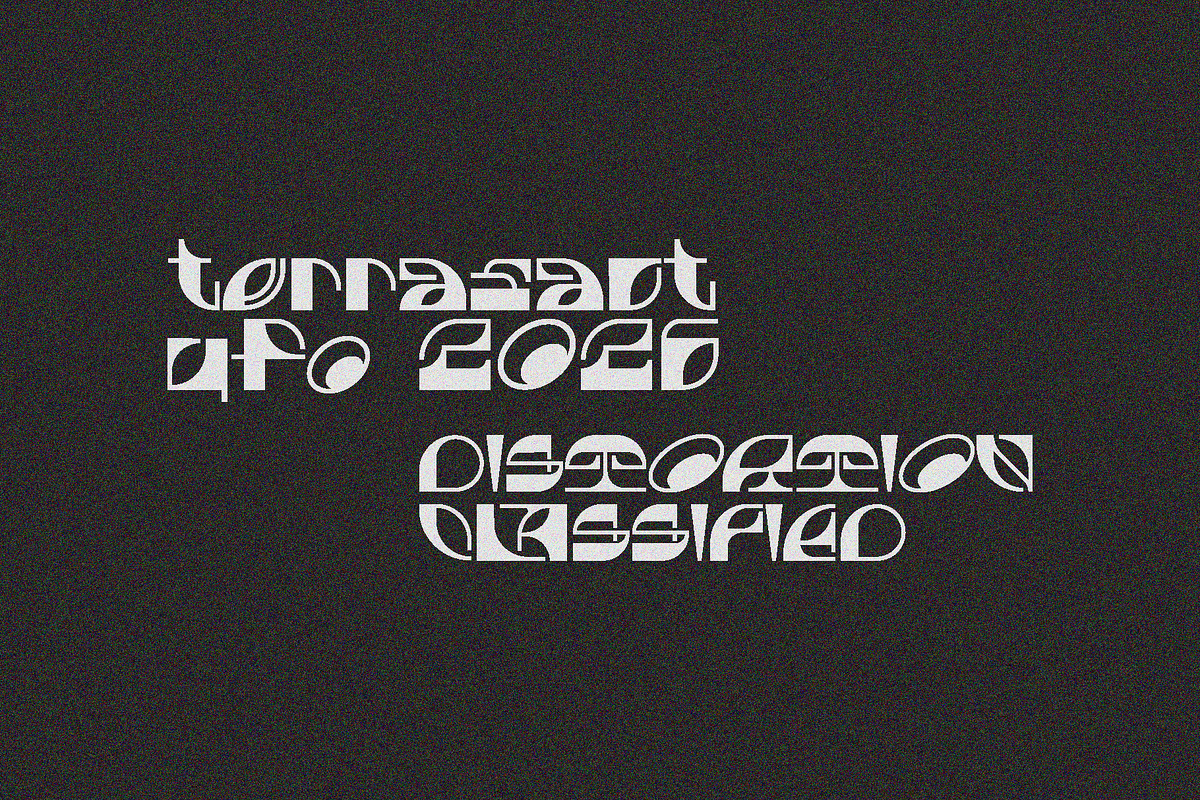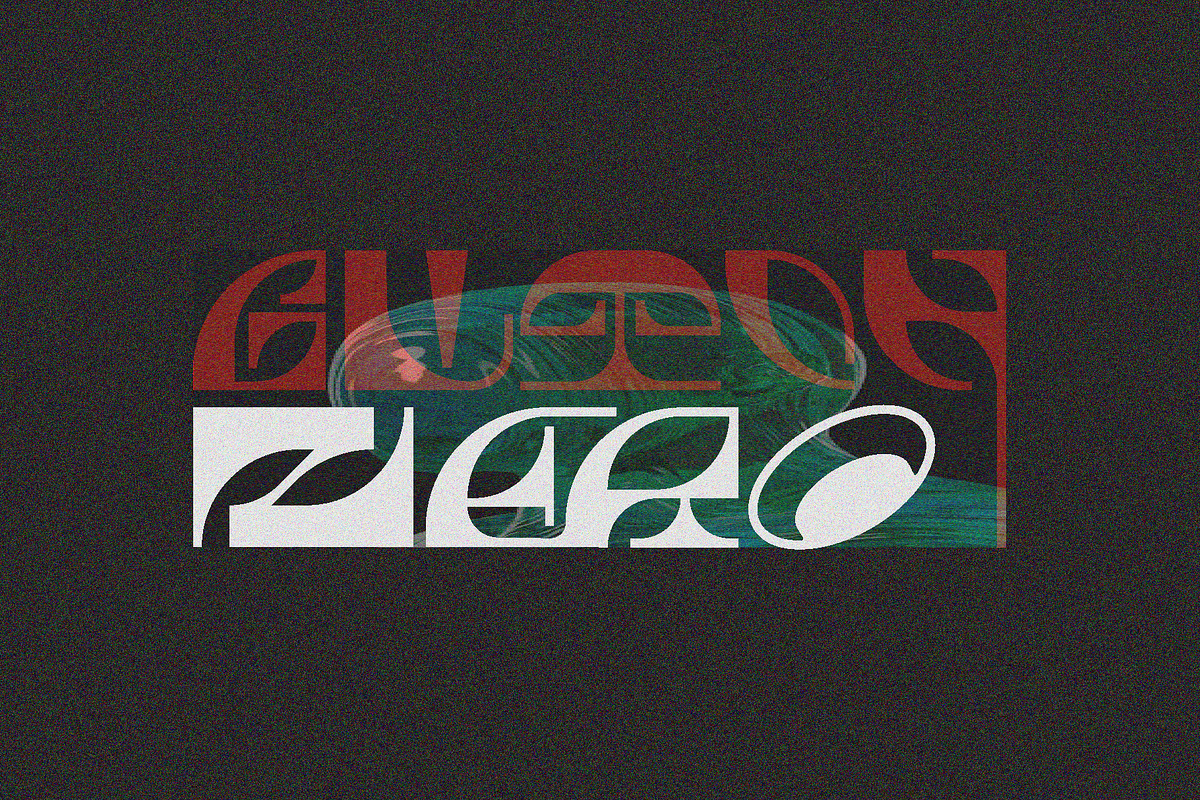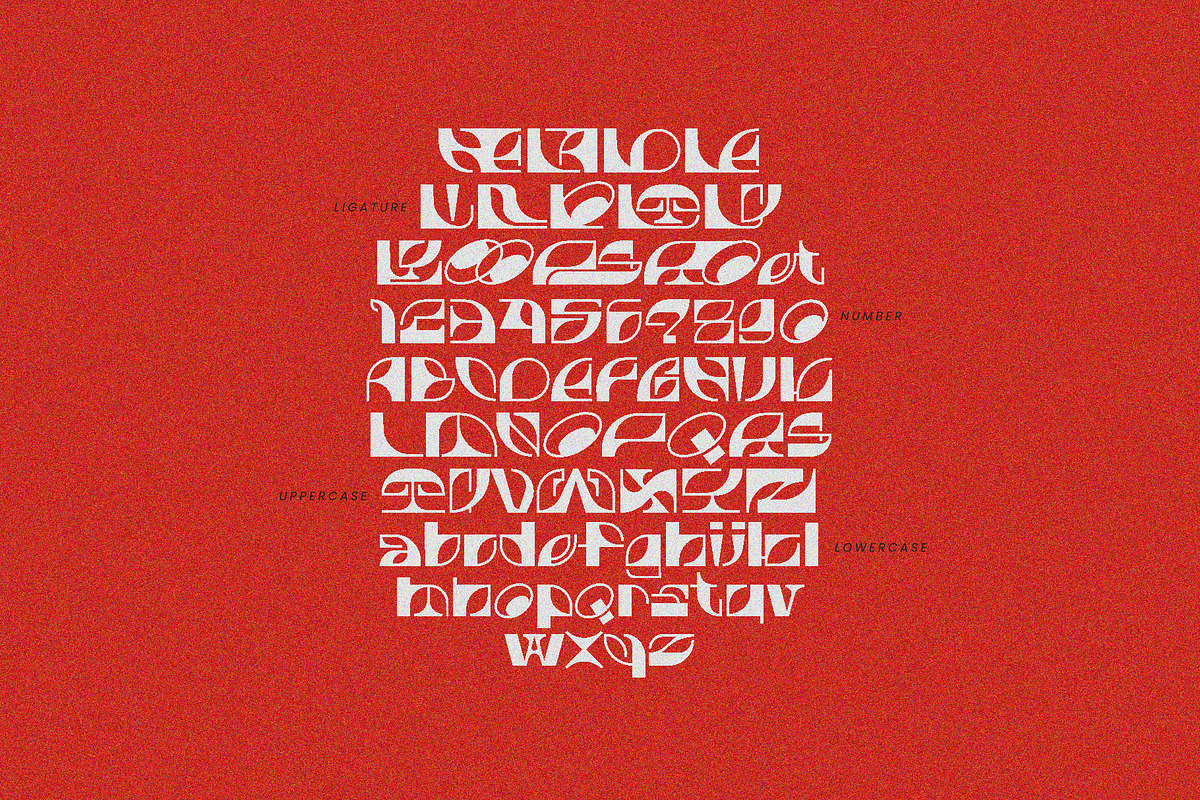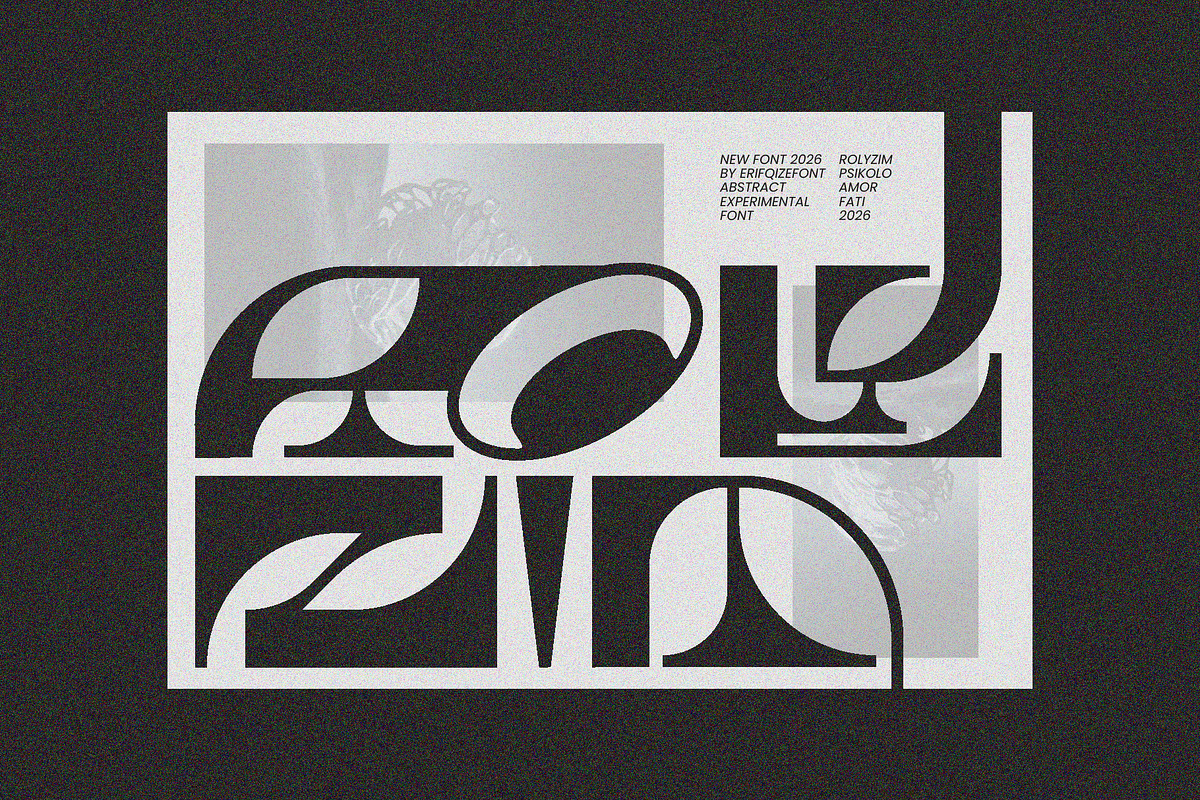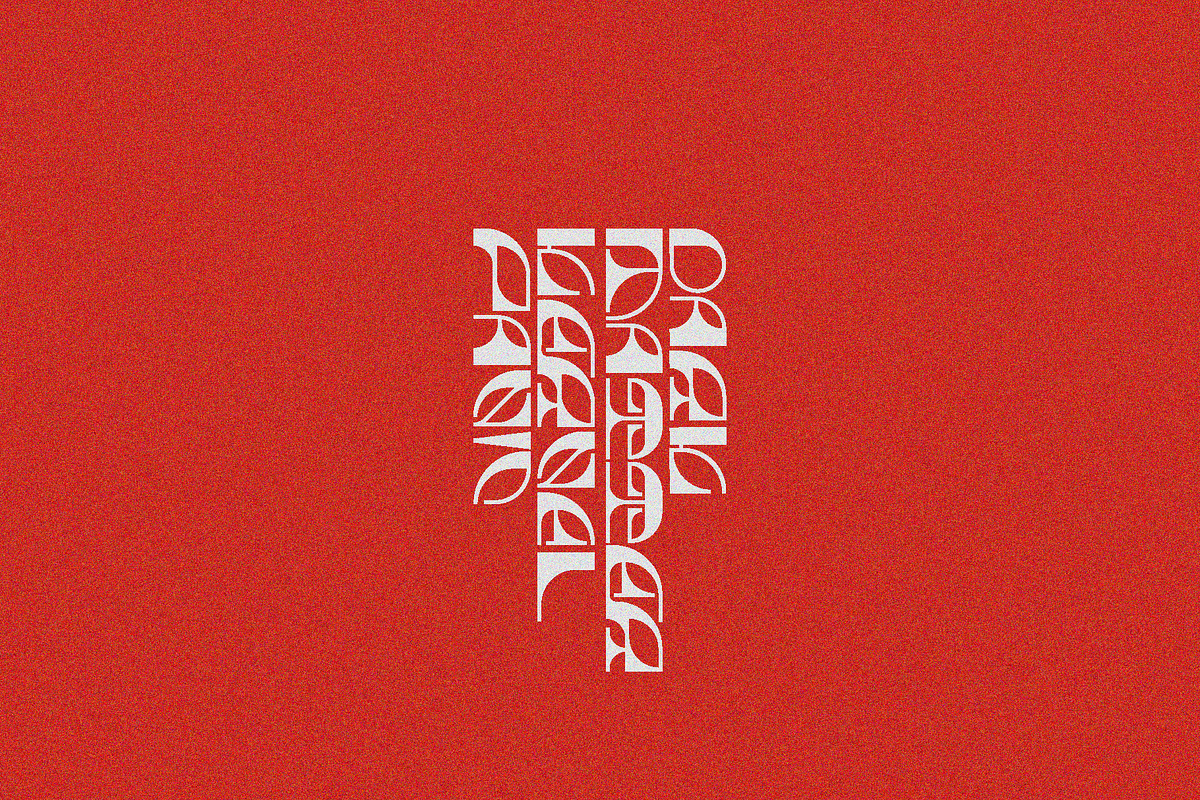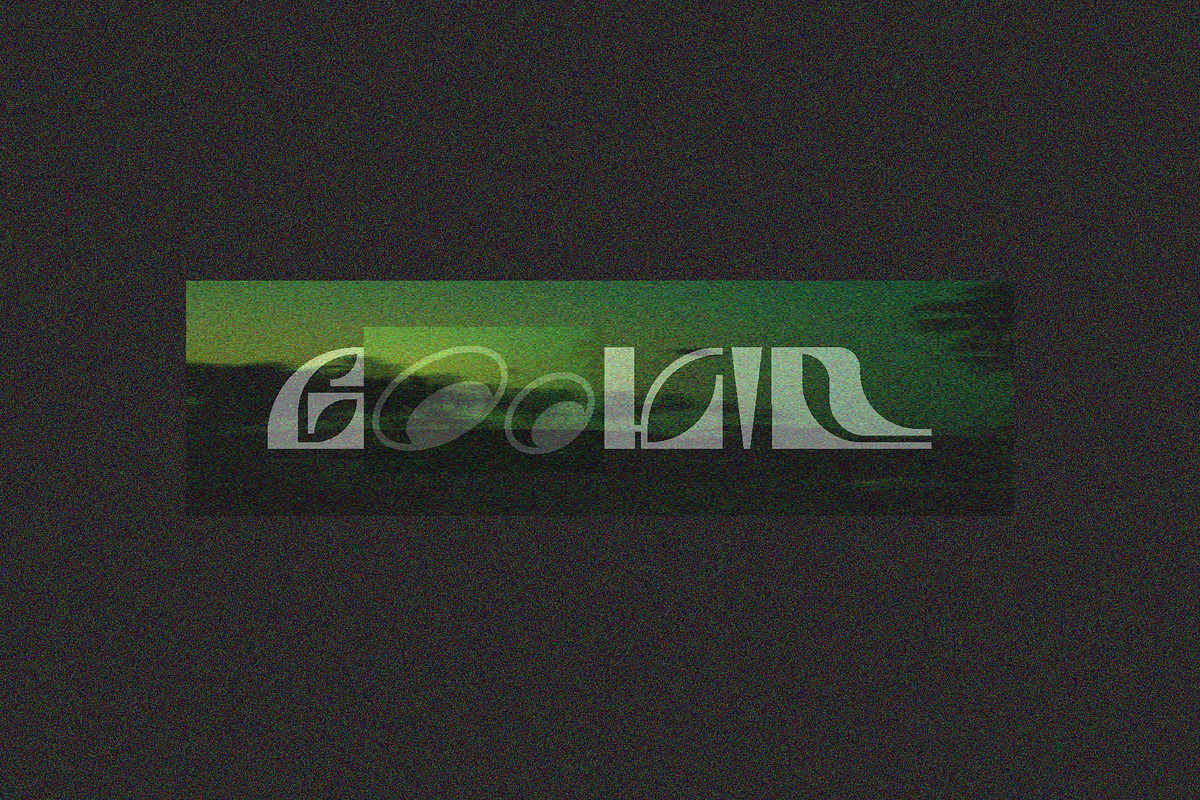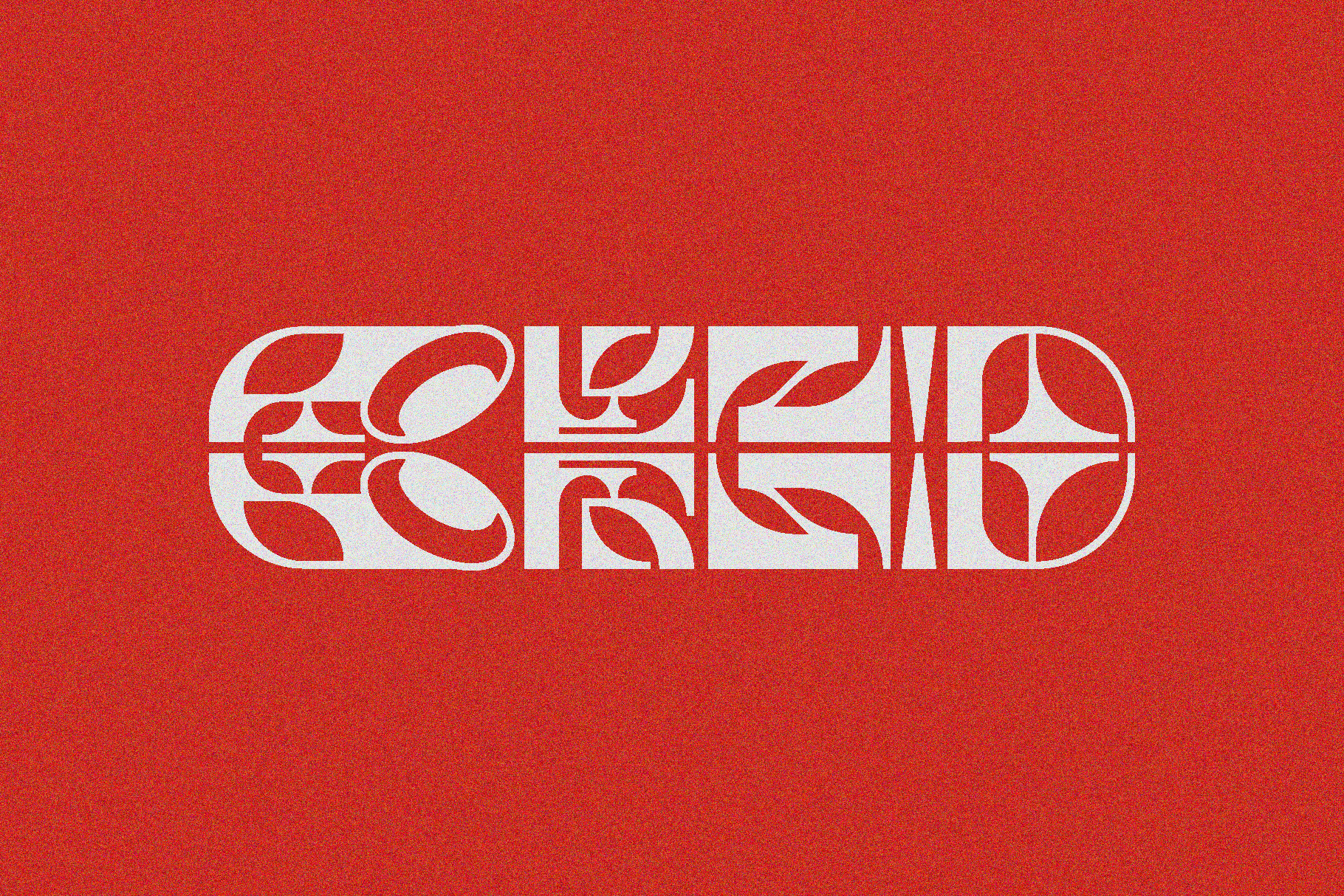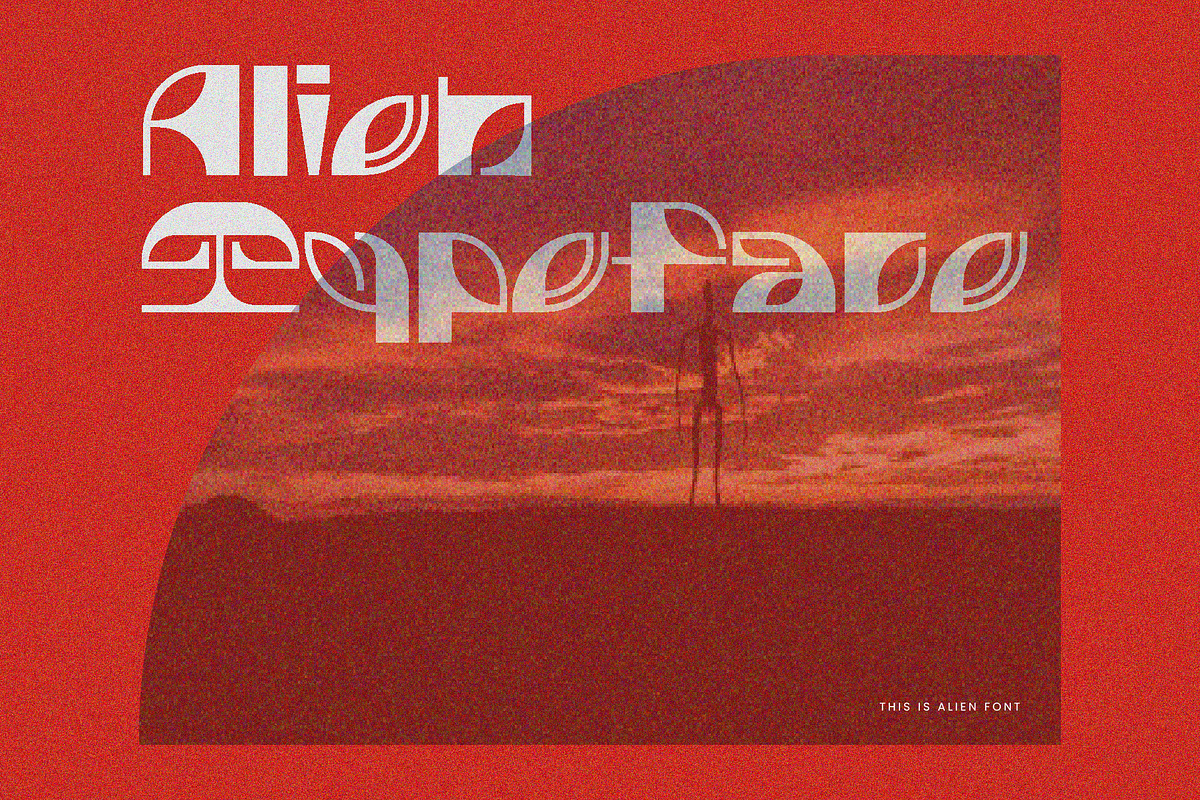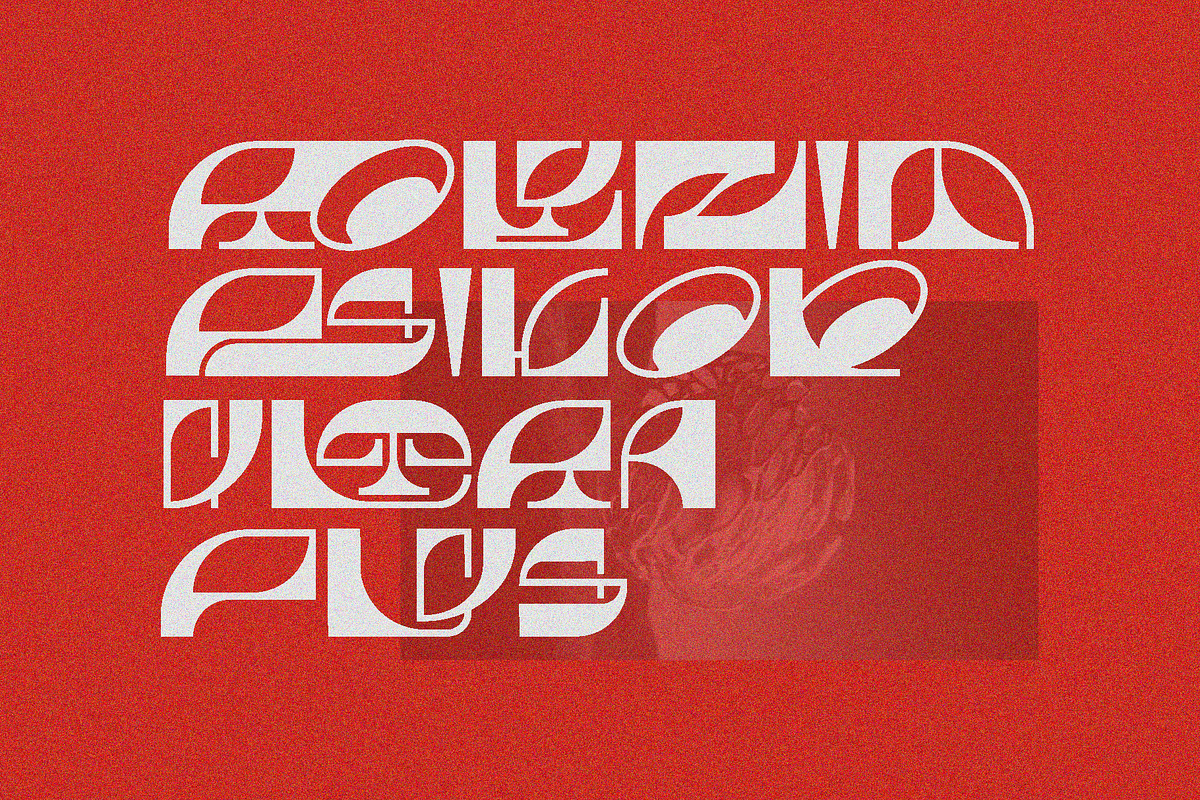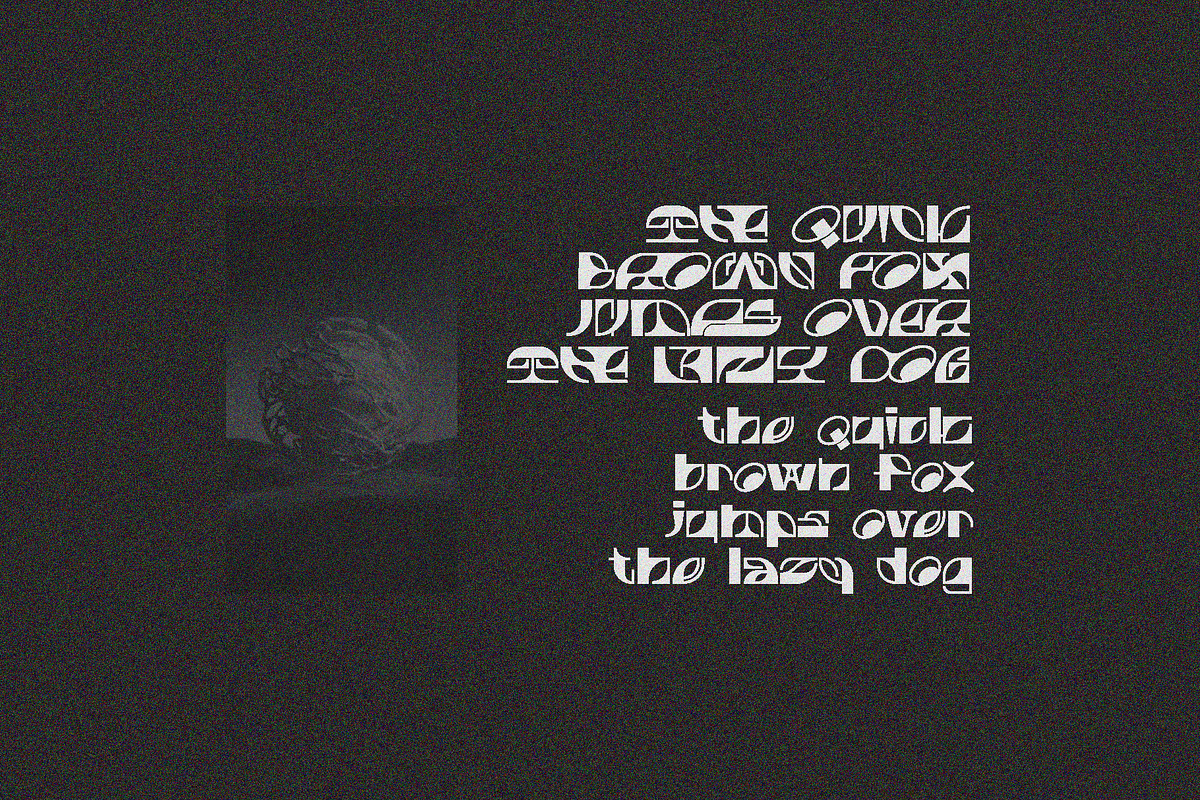
Rolyzim Experimental Alien Font
Rolyzim is an abstract experimental display typeface inspired by futuristic symbols, alien aesthetics, and unconventional geometric forms. Featuring fluid curves, modular constructions, and unique letter compositions, Rolyzim creates a mysterious and otherworldly visual identity that instantly captures attention.
Designed for bold creative exploration, this typeface works perfectly for futuristic branding, sci-fi posters, experimental layouts, music covers, fashion editorials, gaming visuals, and digital art projects. Its distinctive shapes blur the line between typography and abstract visual art, making every composition feel modern, strange, and expressive.
Rolyzim is made for designers who want to push boundaries and create visuals that feel futuristic, artistic, and truly unique.